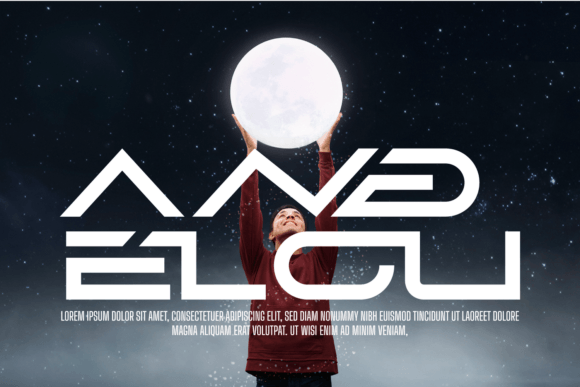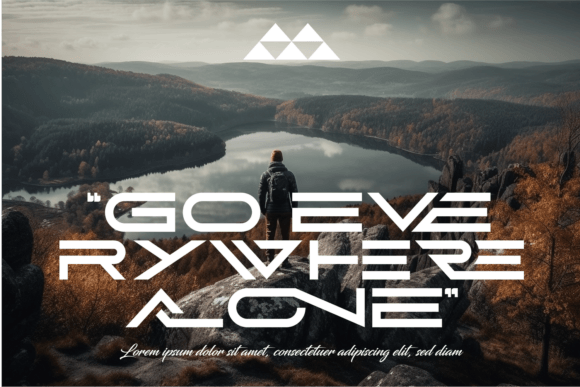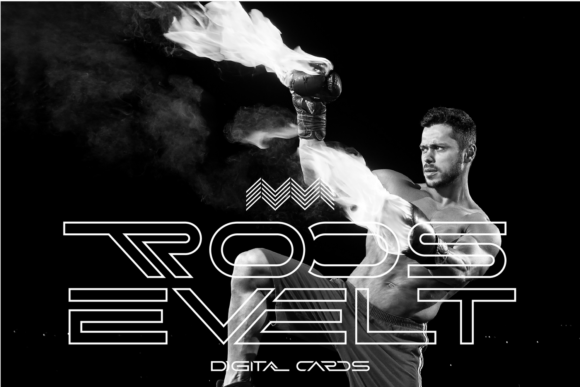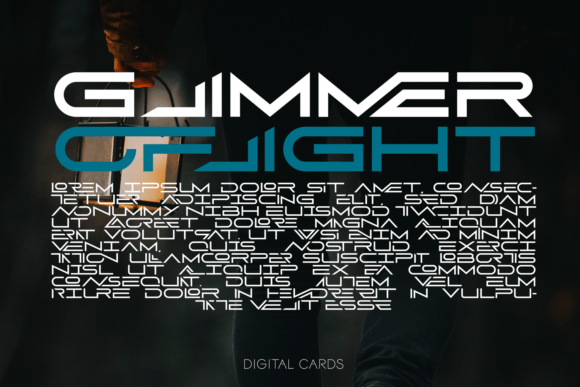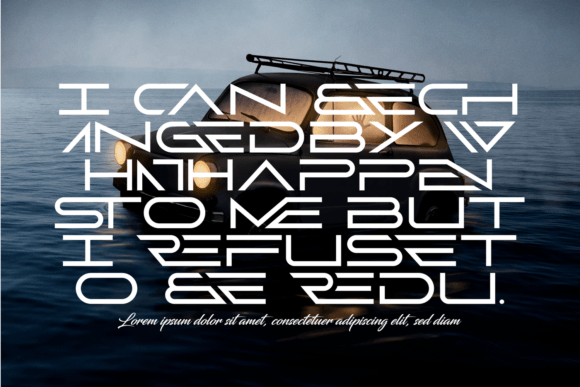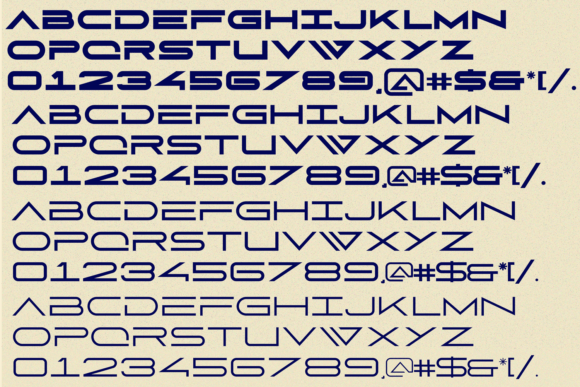
Introduction to Digital Cards Font
Digital Cards is a modern and futuristic level of typeface used to show the futuristic side of your projects.
This font references the science-fiction visual of the retro-futurism mindset, making it perfect for any project that requires a futuristic and technologically advanced design Perfect for the purposes of designing templates, brochures, videos, advertising branding, logos, invitation, layout design, elegant crafting, beauty design and other.
Key Features of Digital Cards Font